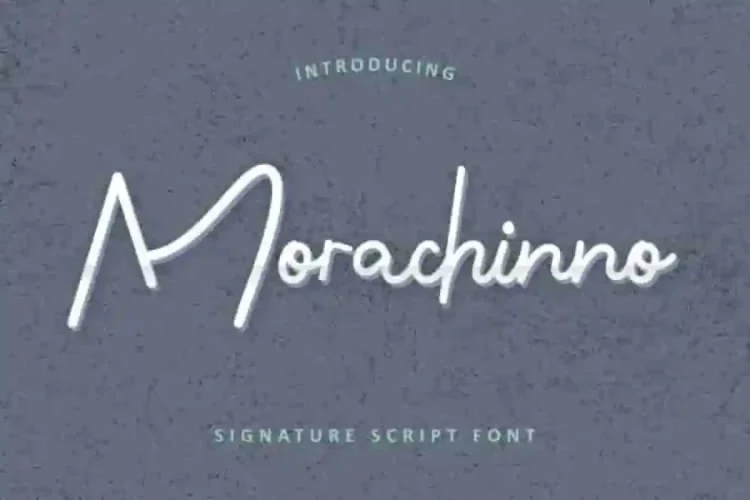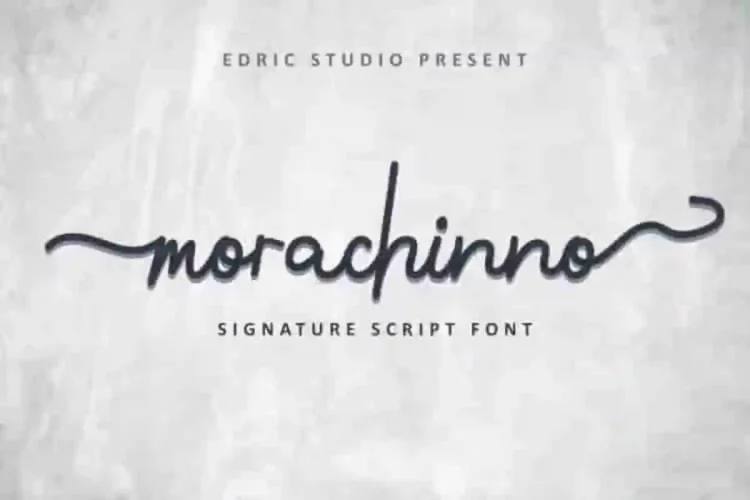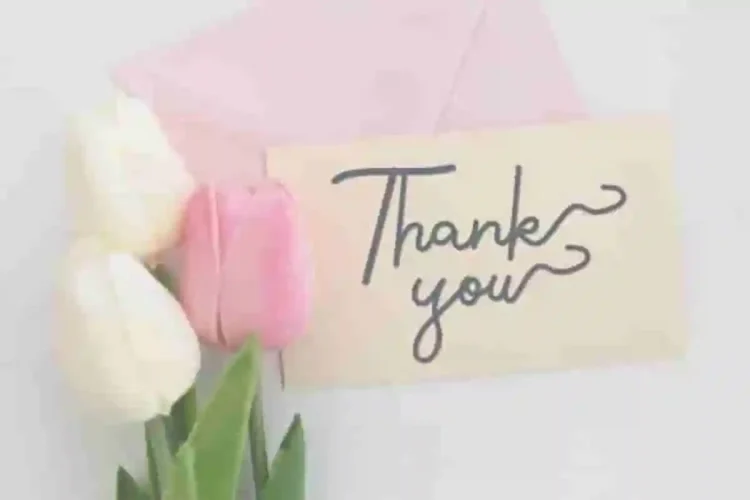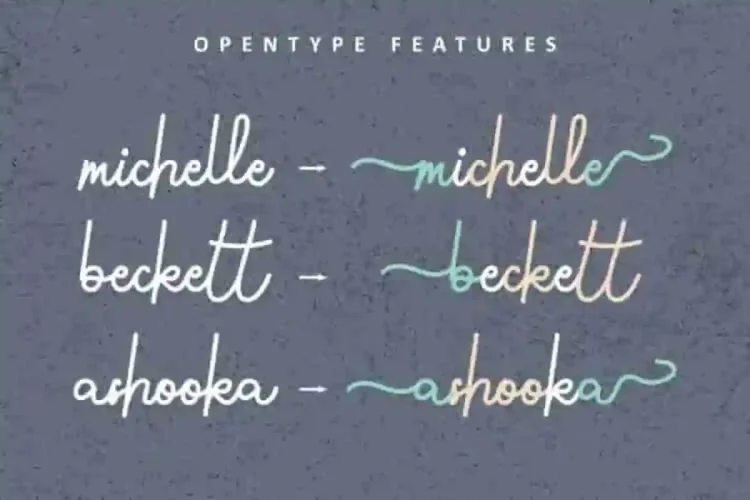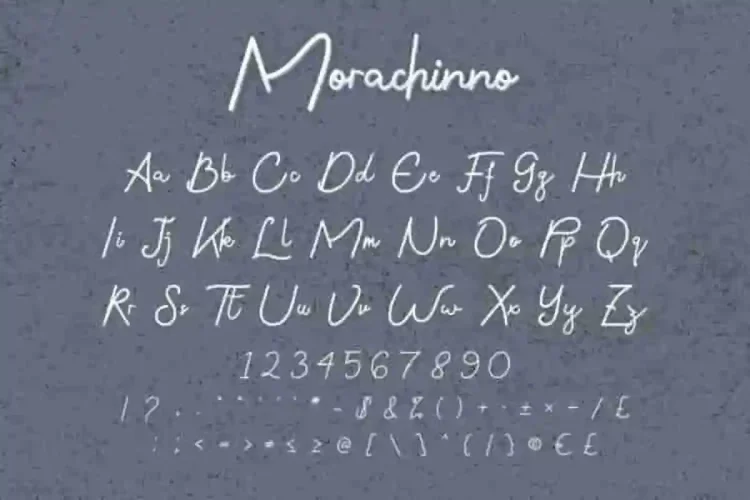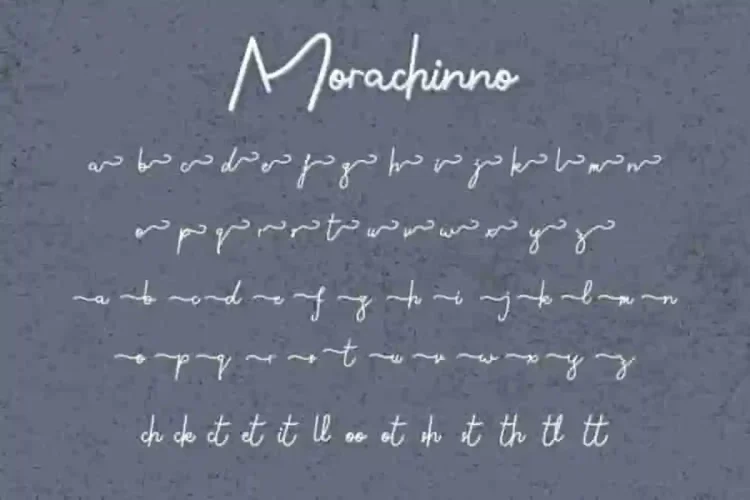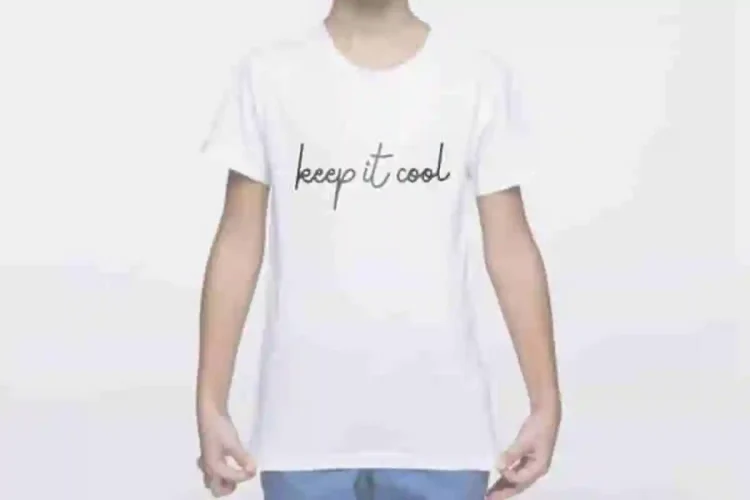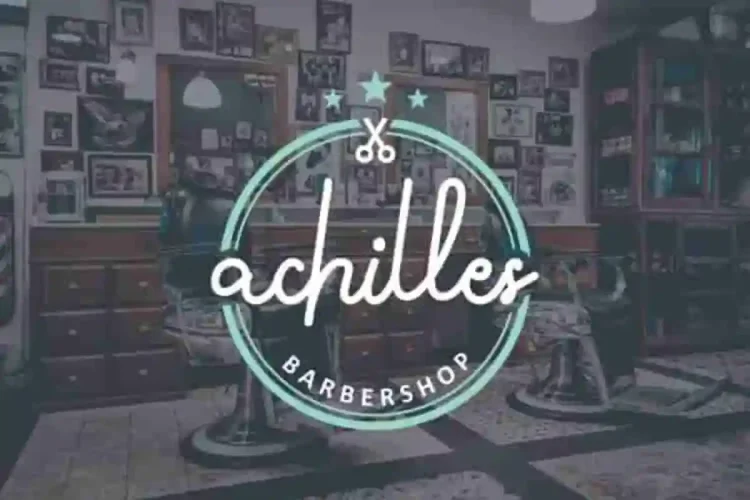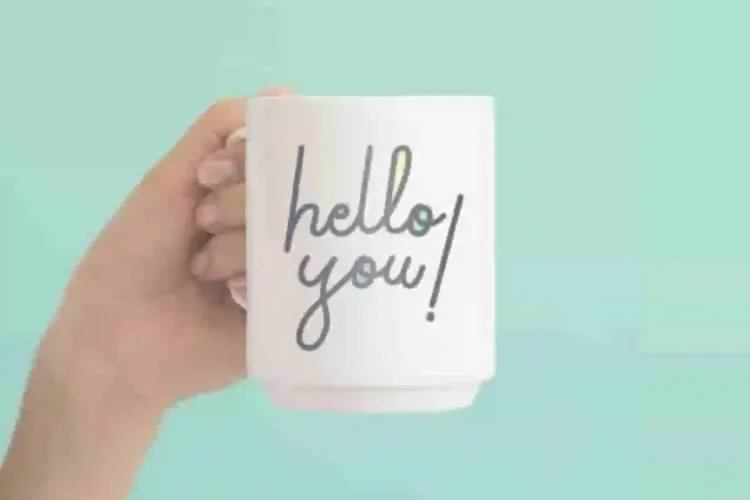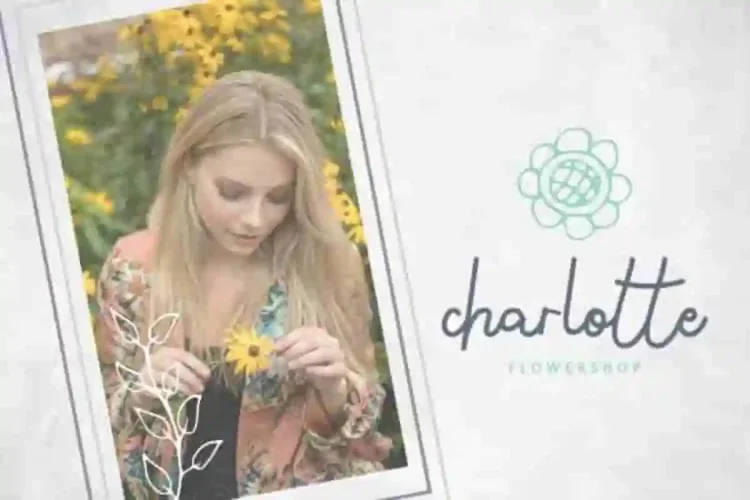
Morachinno Signature Font
It is EDRIC Studio, Please meet Our newest script “signature style” font : Morachinno Signature Font
This is a script font, made in Bandung and Garut, Indonesia. The artists/designers of this beautiful tyeface is Yasri and Sarah Suci.
Morachinno Signature Font is an exclusive stunning signature handwriting script typeface with stylish style. This font has a stunning characters set, perfectly managed with well spaced and kerning. The theme style of this font will elegant,  vintage, stylish, sophisticated and classic brush calligraphic style.
Morachinno Signature Font will be great for any projects including : branding, logo, stationery, business card, signage, flyer, brochure etc. Almost all industries will be match for this typeface: wedding, events, real estate, architect, law firm, florist, gardening, makeup artist, travel, hotel, musician etc